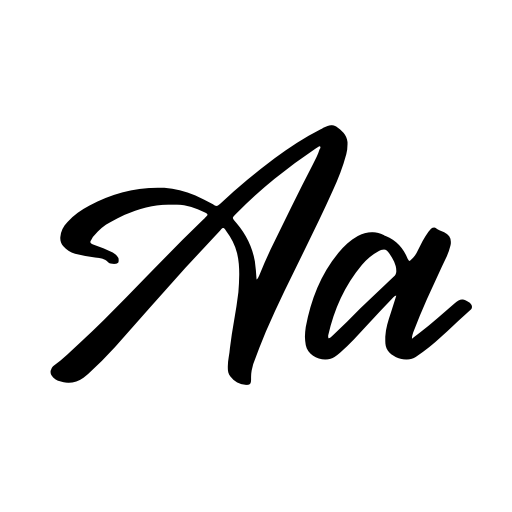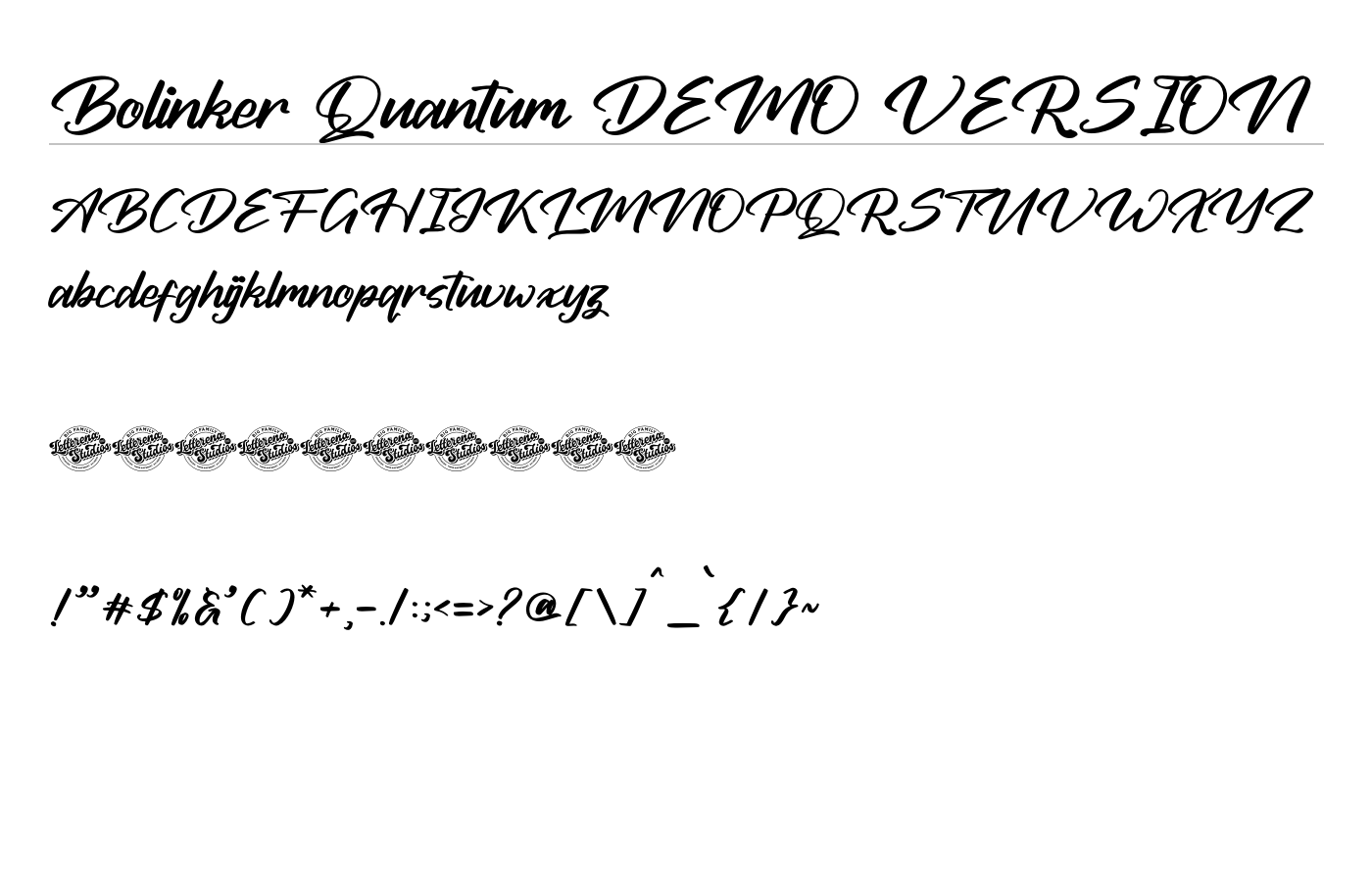
Bolinker Quantum DEMO VERSION is a stylish script font with a bold, flowing character, combining smooth curves and dynamic strokes that give it an energetic and handwritten feel. Its casual yet elegant style makes it well-suited for creative branding, invitations, and expressive headlines where a personal touch and eye-catching flair are desired. This font shines in designs that aim to balance sophistication with warmth and spontaneity.
Bolinker Quantum DEMO VERSION Font
About Bolinker Quantum DEMO VERSION Font